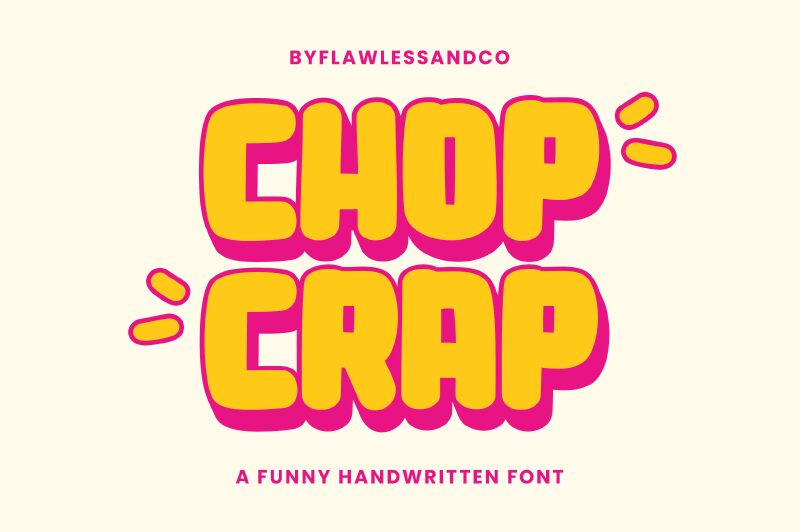
Chop Crap Regular
Chop Crap font by Achmad Yani of Flawless and co. is a bold cartoon display typeface with retro-inspired rounded forms. Its casual vibe creates a distinct personality and invites readers to smile whether used in tiny or large sizes. Bring the contemporary appeal of this unique free font to your regular graphic design projects for exceptional results.
Design care-free pamphlets, joyful birthday invitations, colorful school event flyers, cheerful themed game packaging designs, or unusual poster designs with Chop Crap. Enjoy its amusing style in digital projects including mobile and computer typography for applications, websites, video games (UI), cartoons, social media posts and advertisements.